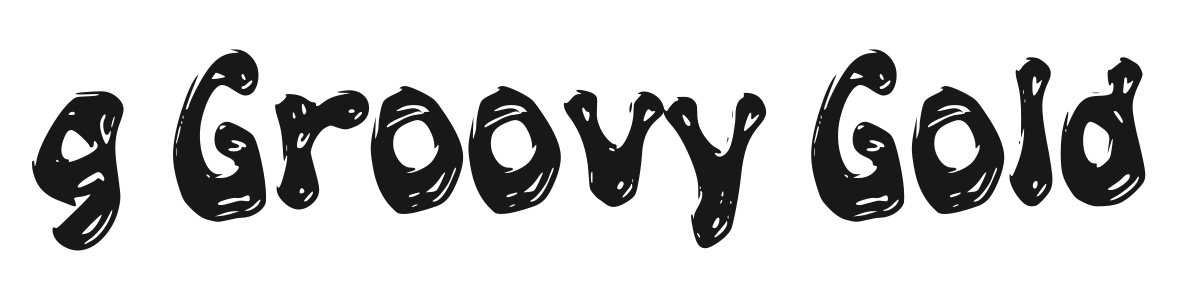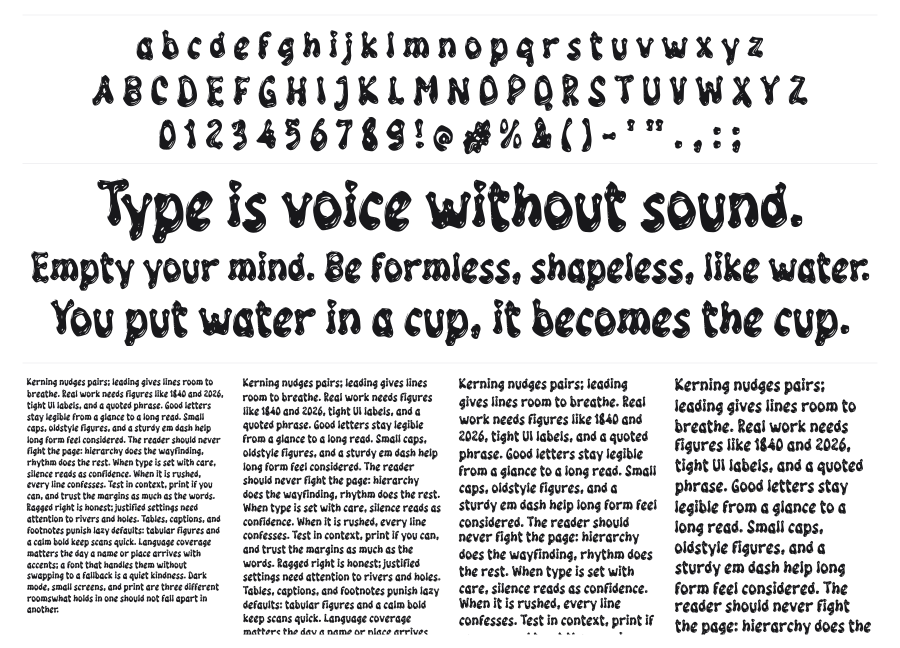
g Groovy Gold
g Groovy GoldFish is a heavy psychedelic display font soaked in late-1960s counterculture energy. Its thick, swelling strokes pool into rounded, almost liquified masses with a hand-inked texture that reads like melting gold on a concert poster. The result is bold, unapologetically funky, and impossible to ignore at large sizes.